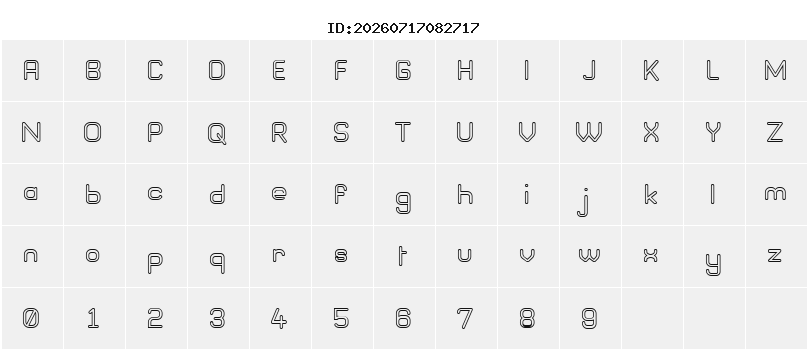
• Font Name: Brave New Era (outline) G98
About Brave New Era (outline) G98.ttf
Brave New Era (outline) G98.ttf is a modern, elegant sans-serif font designed for ultimate readability and visual harmony. Perfect for branding, headlines, web design, and print materials.